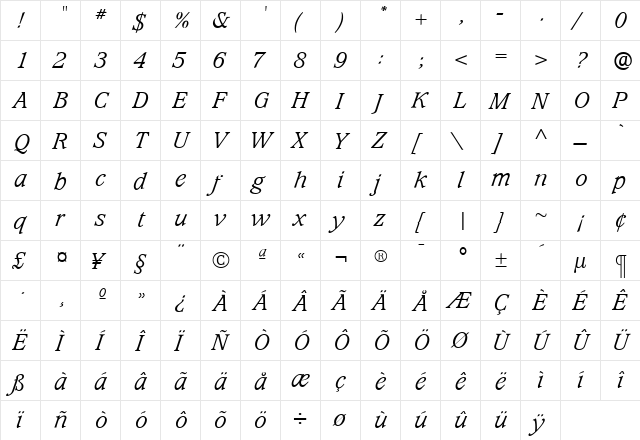
WaverlyLightItalic Roman Font Preview
Design Context for WaverlyLightItalic Typeface
WaverlyLightItalic is a composed and adaptable typeface that performs quietly and consistently across a wide range of design contexts. Its italic angle brings a sense of urgency and motion to the letterforms. The delicate stroke weight brings airiness and refinement to layouts.